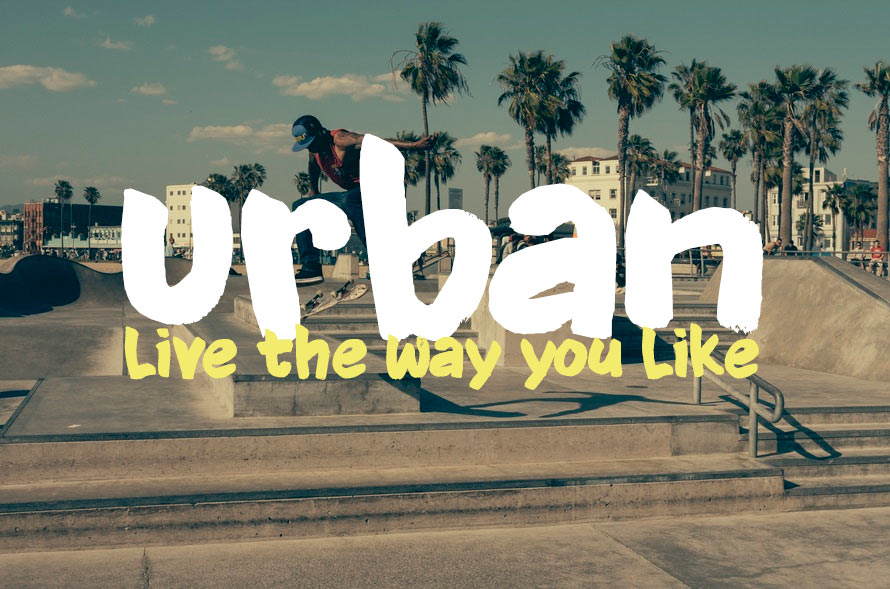
DK Knockdown is a bold and expressive free font handwritten with thick brush. This demo font comes with limited sets of characters, but is enough for everyone to play around for personal projects. Commercial license is required for commercial works.